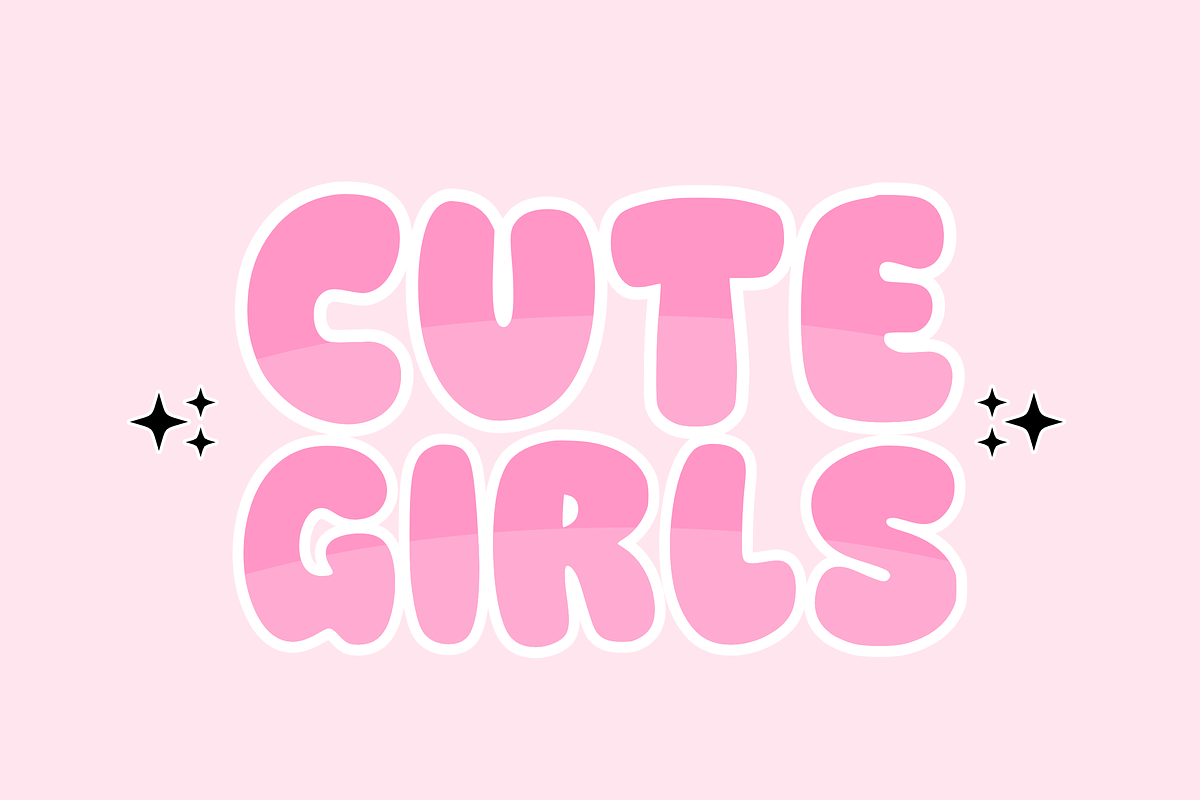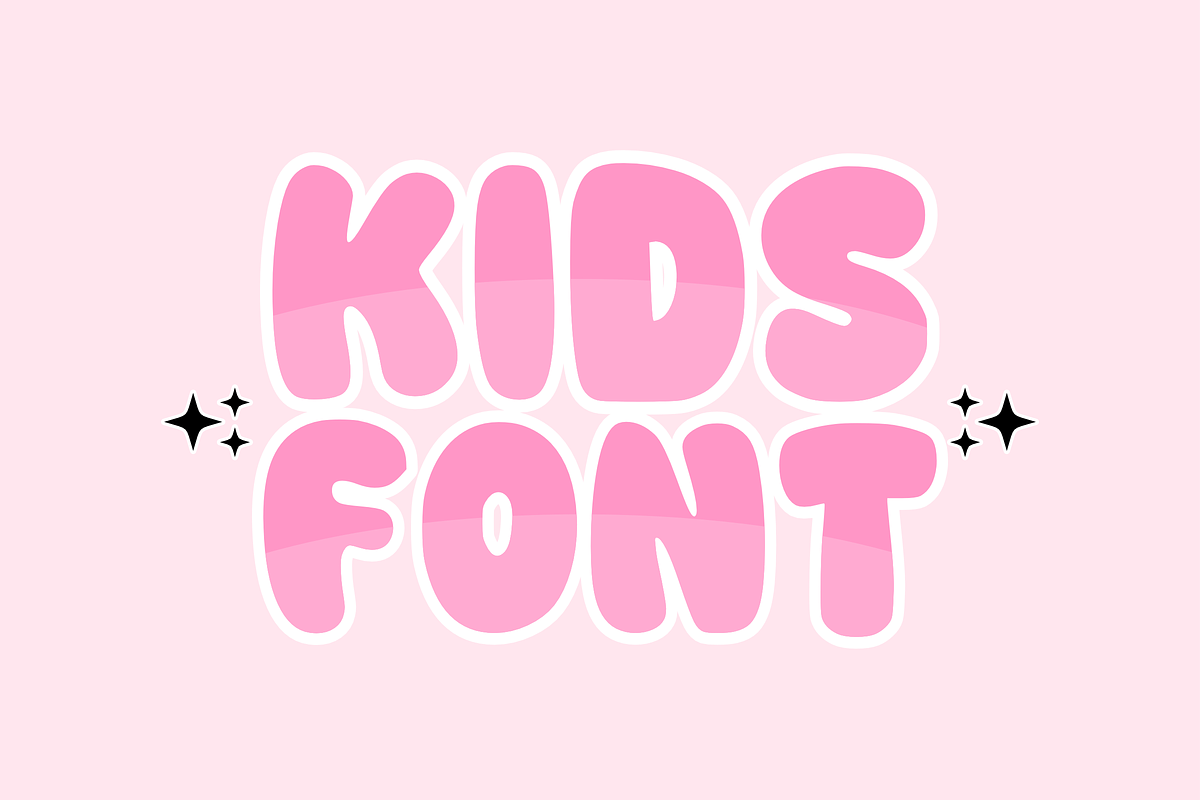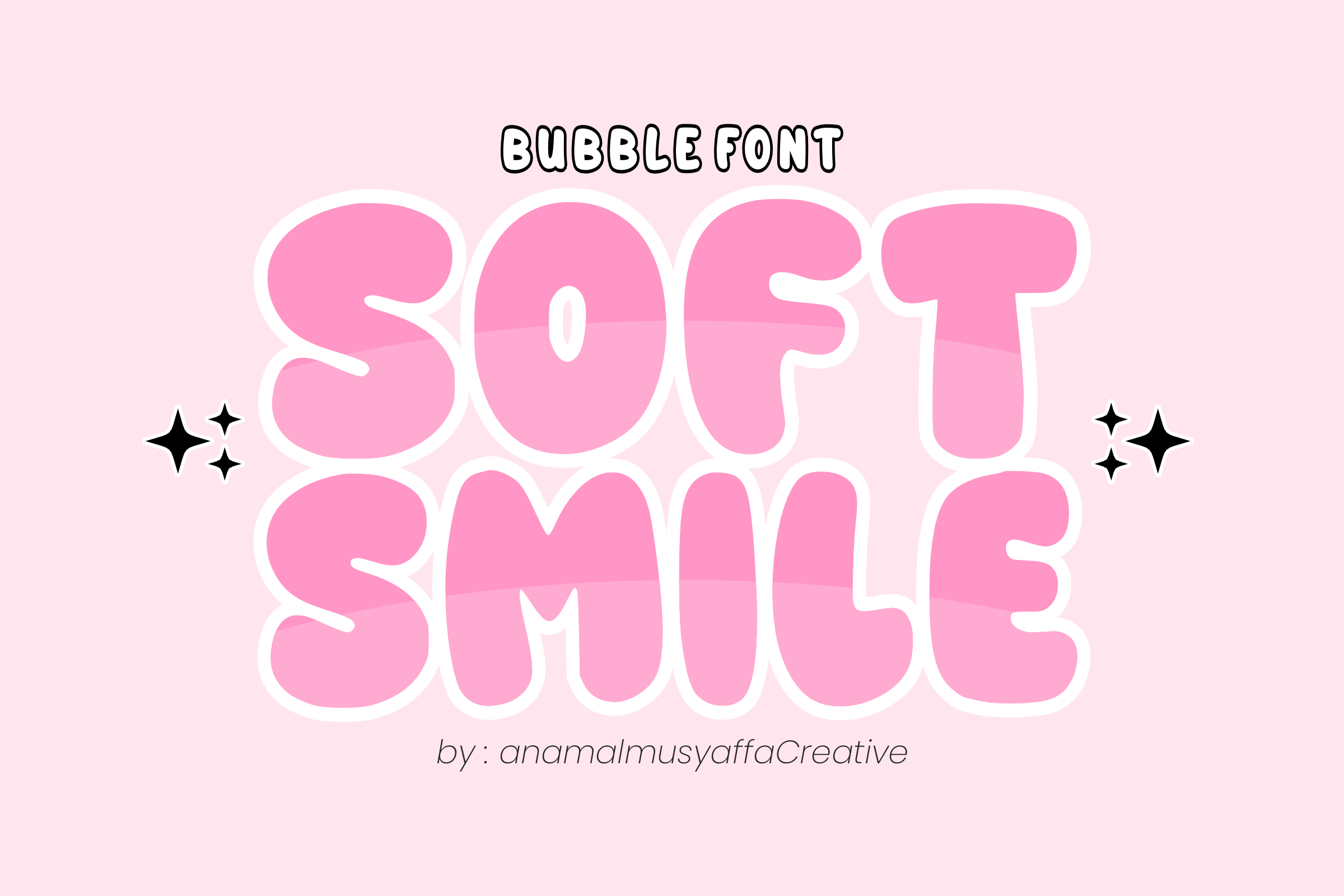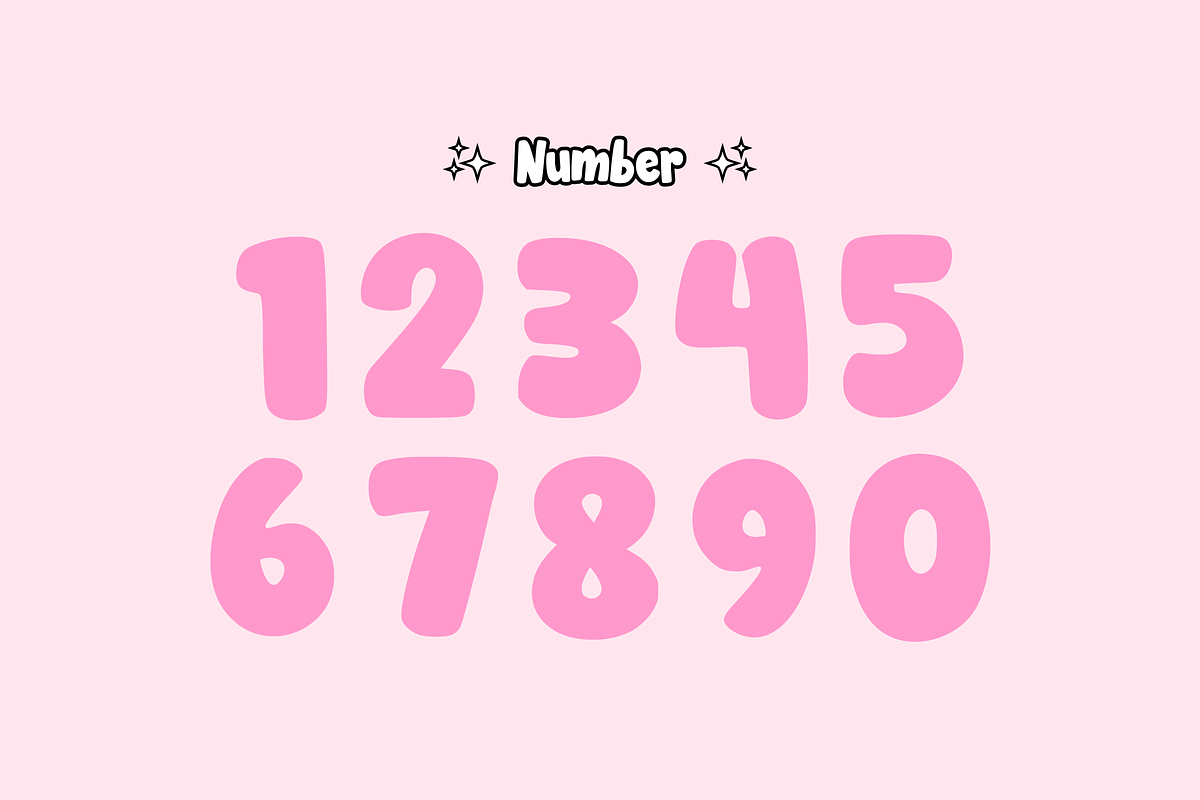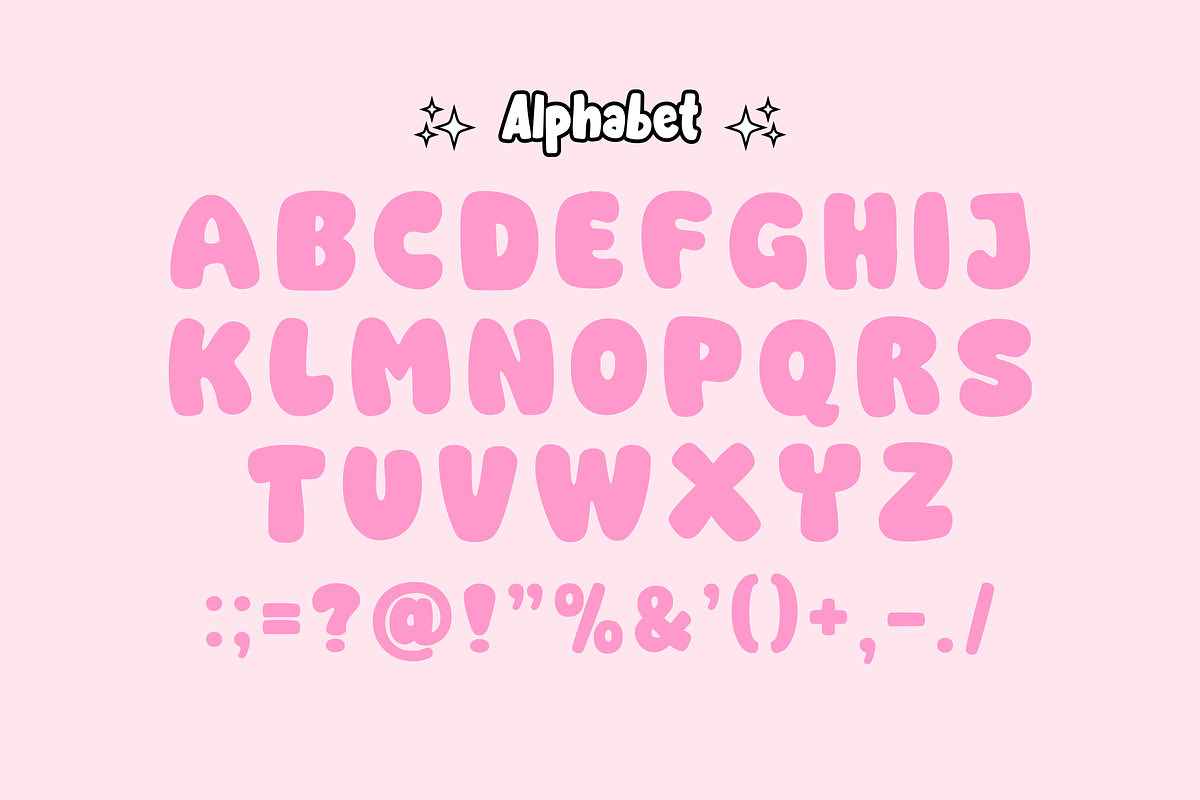
Soft Smile - Bubble Font Display
😊 Soft Smile - Playful & Sweet Bubble Display Font ✨
Brighten up your designs with Soft Smile! This delightful bubble display font is all about spreading joy and positivity. With its ultra-rounded, "puffy" letterforms and smooth, organic curves, Soft Smile is perfect for projects that need a soft, friendly, and approachable touch.
Inspired by modern sticker art and playful branding, this font is a "sweet" choice for anyone looking to create eye-catching headlines that practically jump off the page with happiness!
💖 What Makes it Special: Chubby Uppercase Set (Bold & Sweet) 🔠
Numbers & Basic Symbols 🔢
Soft & Puffy Aesthetic (Modern Bubble Style) 🫧
High Impact & Legible (Perfect for big titles) 👁️
🚀 Best Used For: Kawaii Branding & Cute Logos 🎀
Social Media Graphics & Quotes 📸
Packaging for Skincare or Sweets 🍬
Sticker Designs & Digital Planning 📒
Kids' Apparel & Poster Art 👕
Greeting Cards & Happy Mail 💌